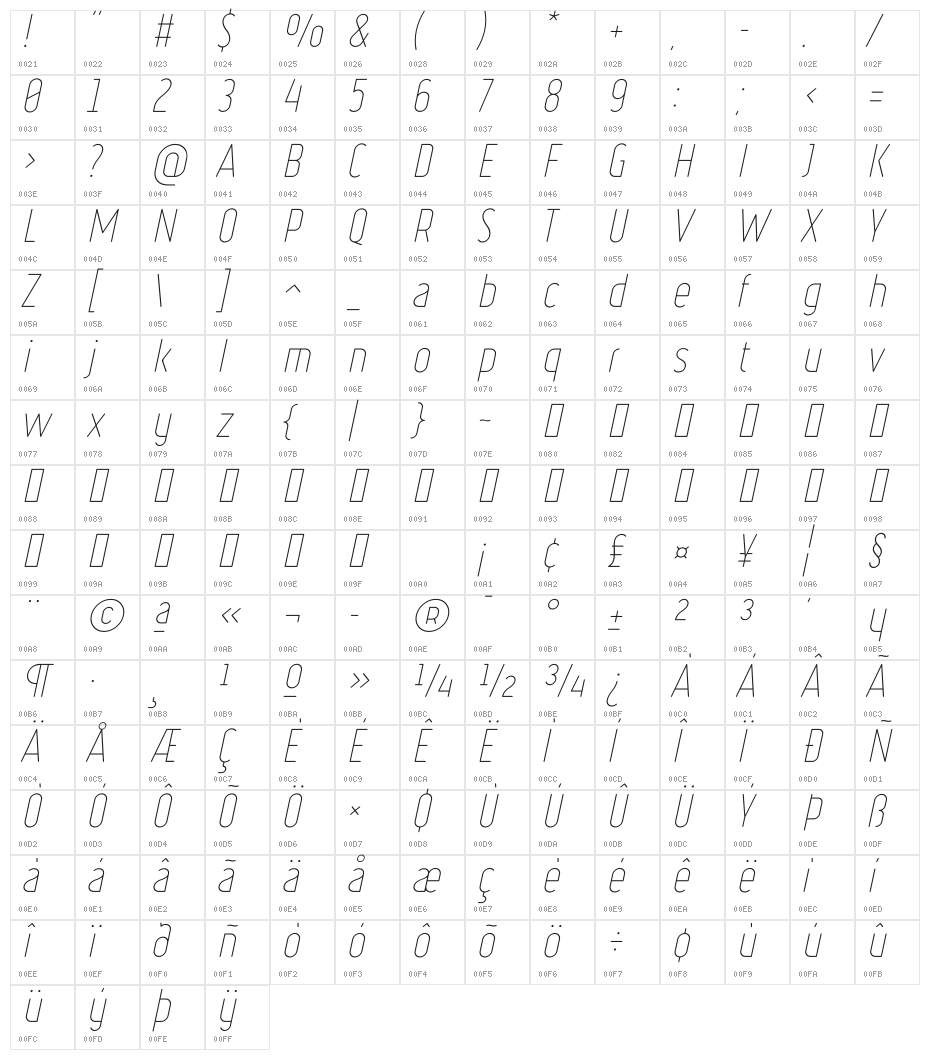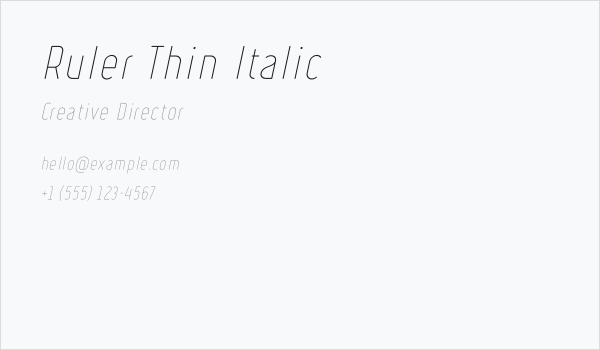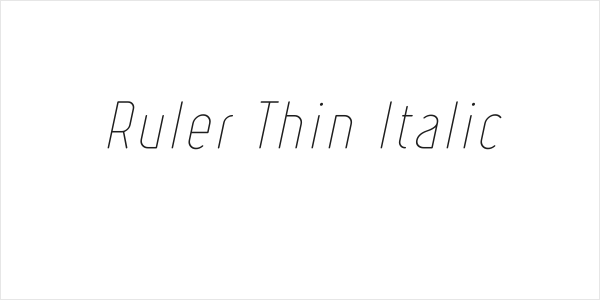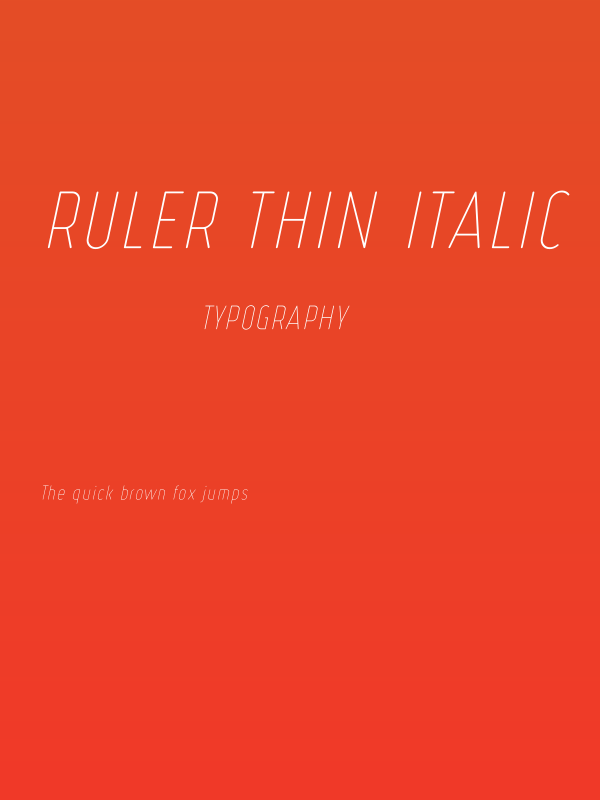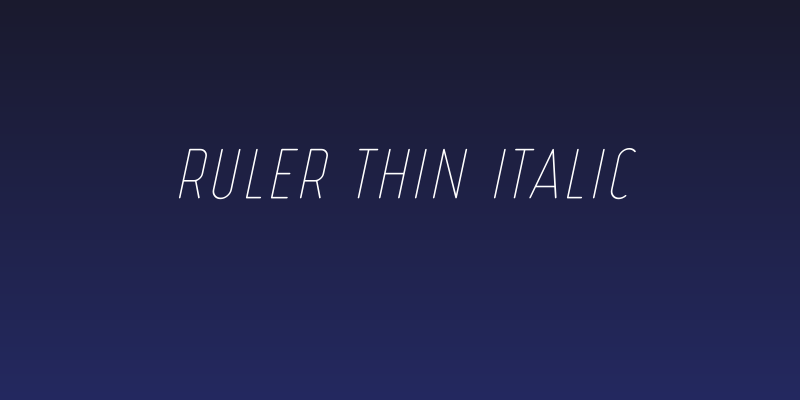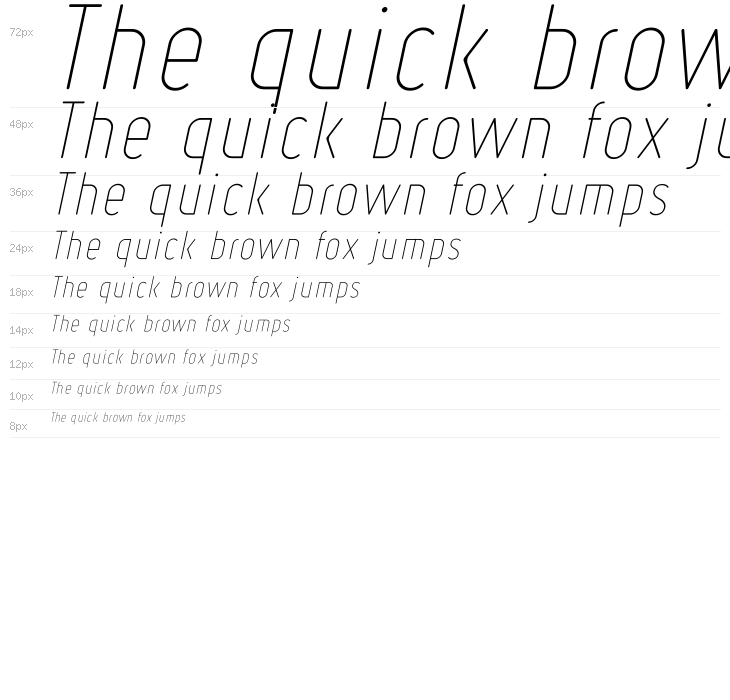
Ruler Thin Italic Font
Ruler Thin Italic Description
This font features a sleek and modern design with thin, elongated letterforms that convey a sense of elegance and sophistication. The italic style adds a dynamic and forward-leaning appearance, enhancing its contemporary feel. Each character is crafted with precision, maintaining a consistent stroke width that contributes to its refined aesthetic. The font's minimalistic approach makes it versatile for various design applications, from digital interfaces to print media. Its clean lines and understated elegance make it suitable for projects that require a touch of modernity and class.
| Use Case | Headlines, Logos, Editorial design |
| Proposed Projects | Ideal for fashion magazines, luxury branding, modern websites, and minimalist design projects. |